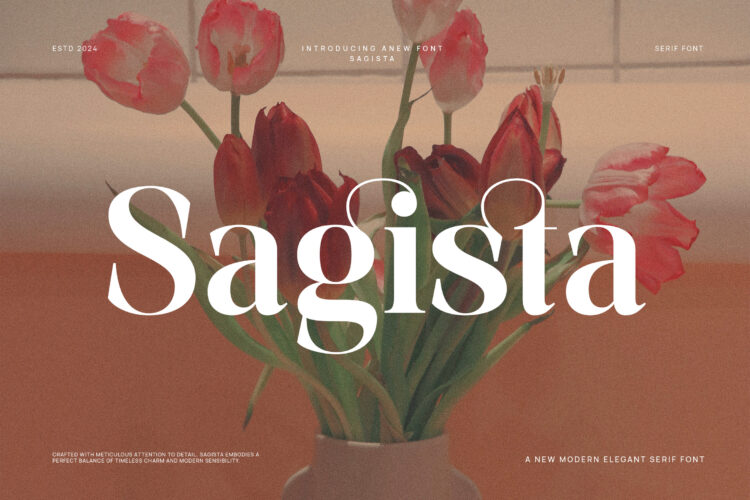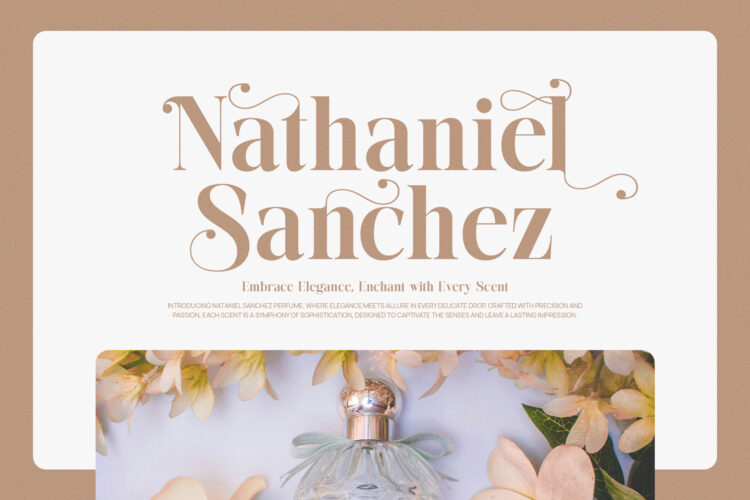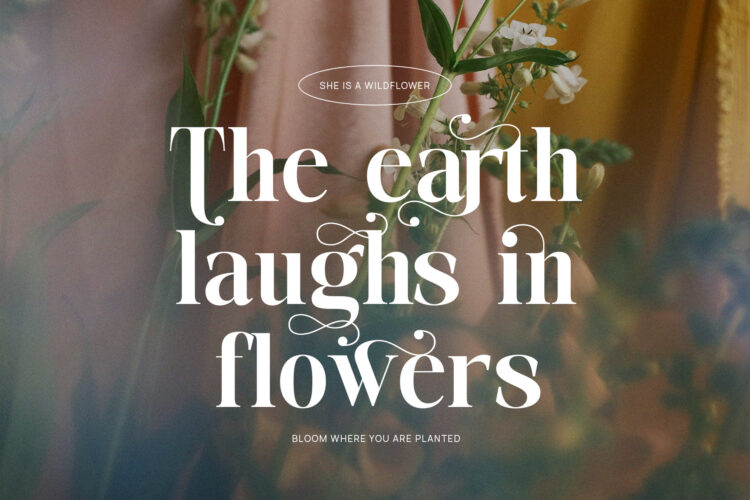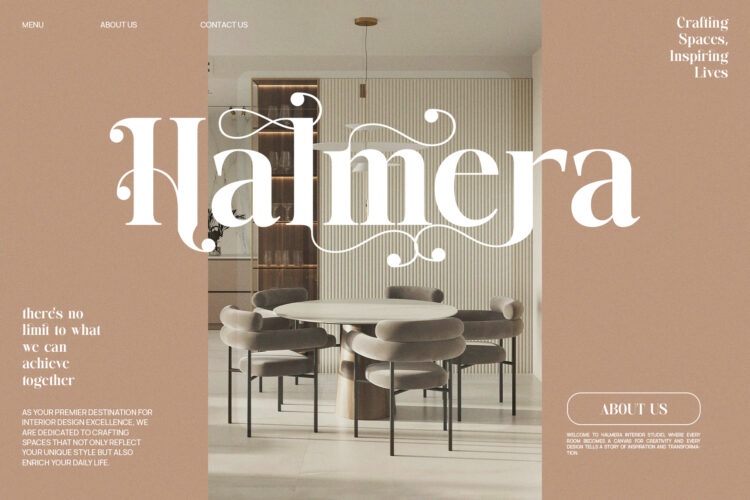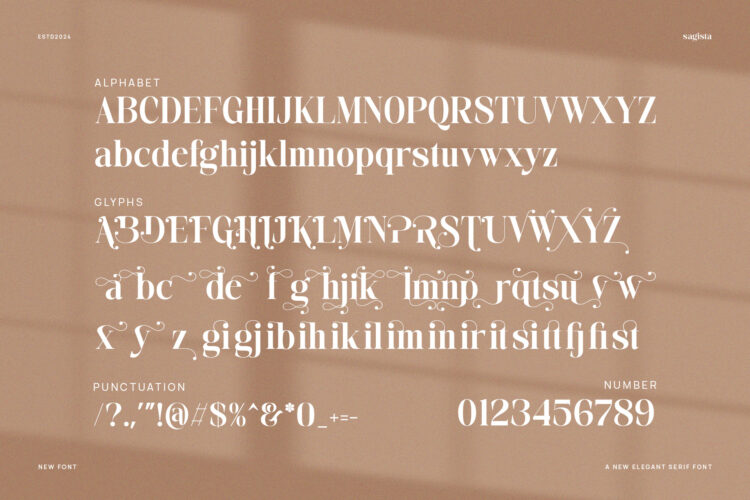
Introducing our new Sagista, modern serif font with elegant style this is perfect for branding, logos, invitation, magazines, product packaging and more.
Sagista – Elegant Serif Font